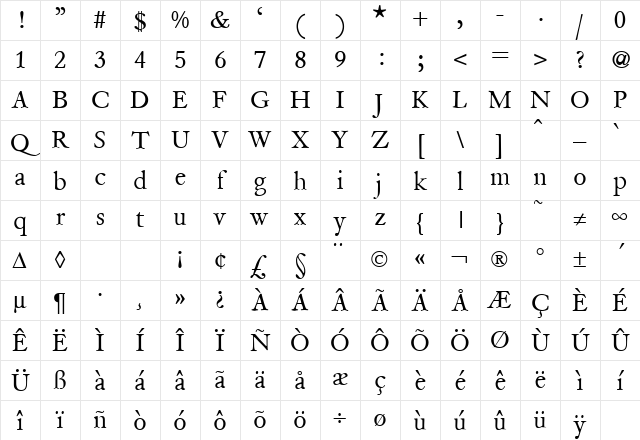
VanityBook Regular
Design Context for VanityBook
VanityBook is a composed and adaptable typeface that performs quietly and consistently across a wide range of design contexts.